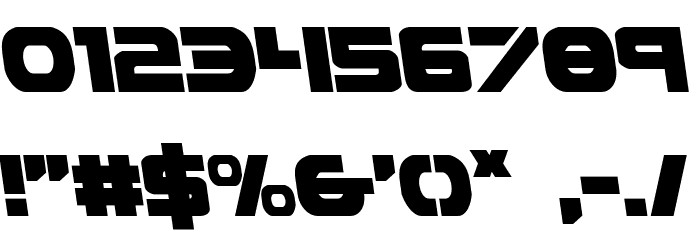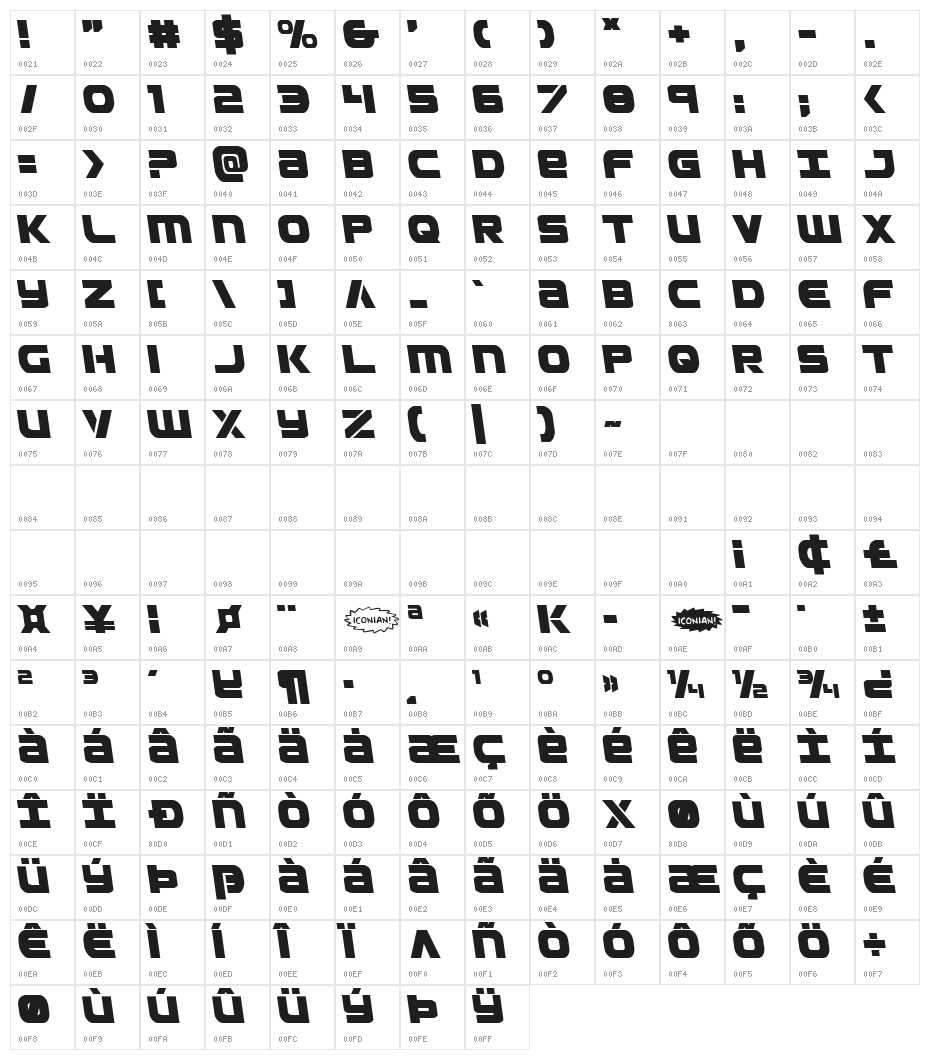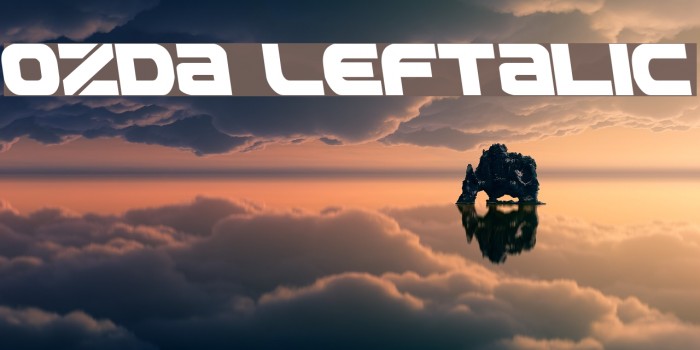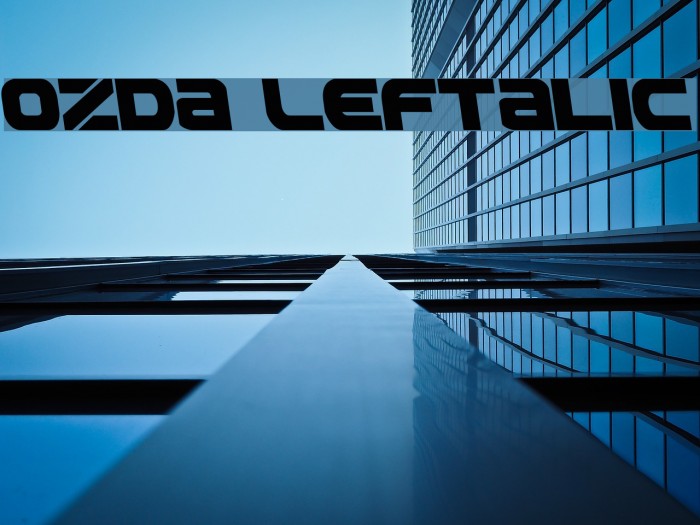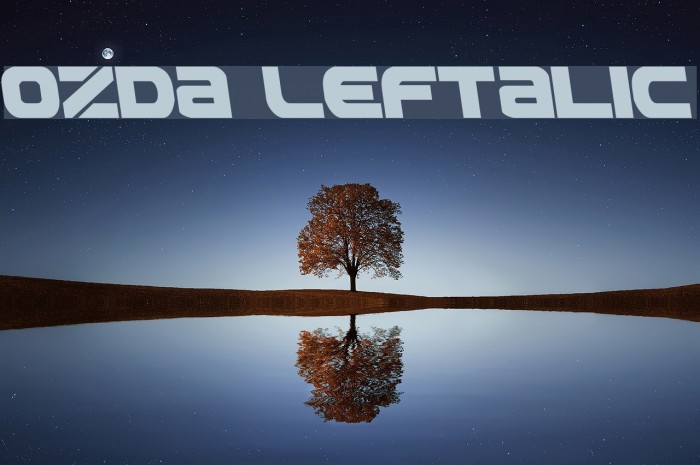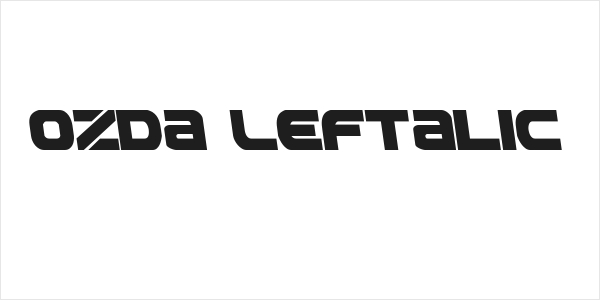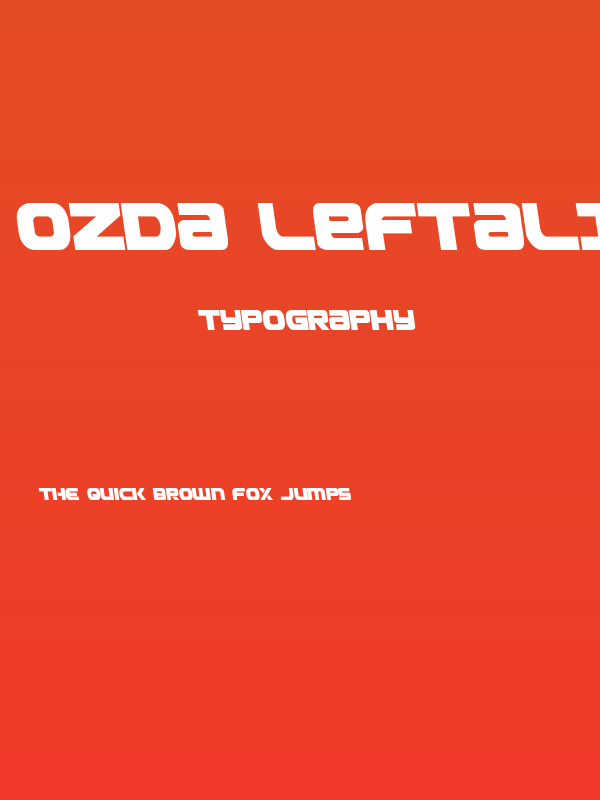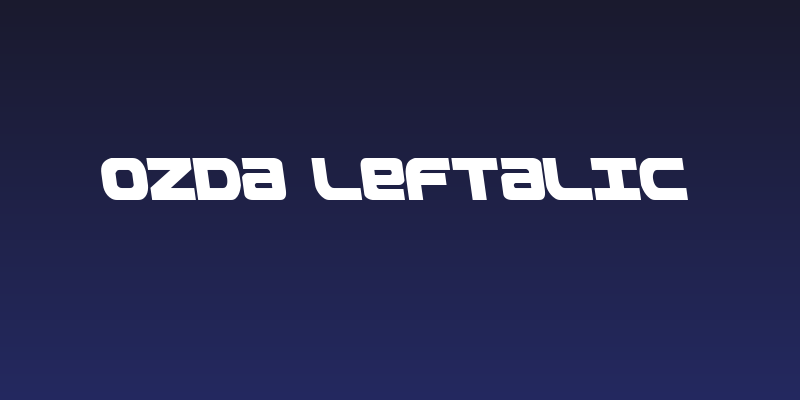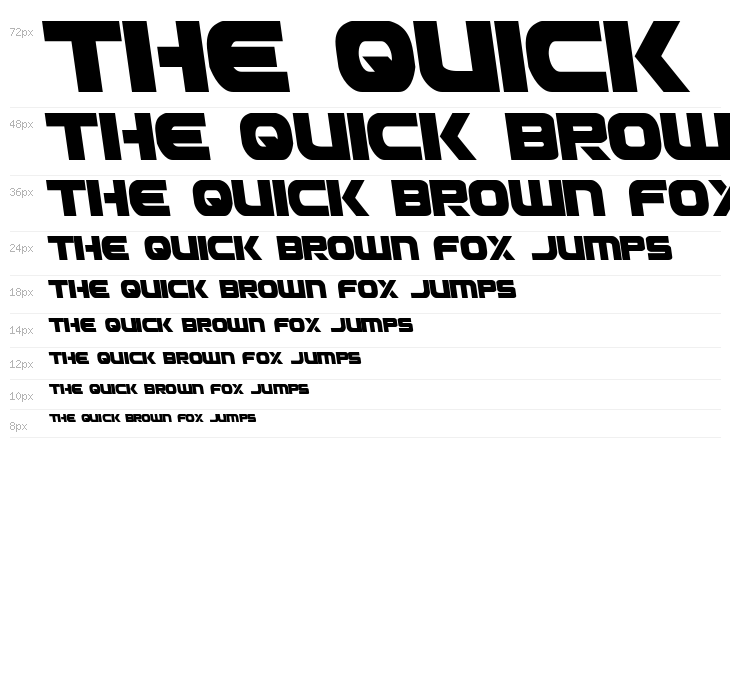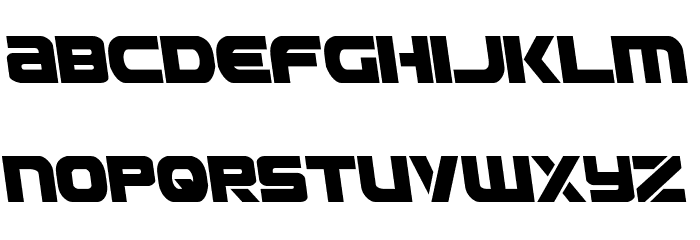
Ozda Leftalic Font
Ozda Leftalic Description
This font features a bold, futuristic design with a distinct slant to the left, giving it a dynamic and forward-moving appearance. The characters are wide and have a strong presence, making them ideal for attention-grabbing headlines or logos. The geometric shapes and sharp angles contribute to its modern aesthetic, while the consistent stroke width across all characters ensures readability. The font includes a full set of uppercase and lowercase letters, numbers, and a variety of special characters, making it versatile for different design needs.
Proposed ProjectsIdeal for sci-fi themed projects, technology branding, video game titles, and modern posters.